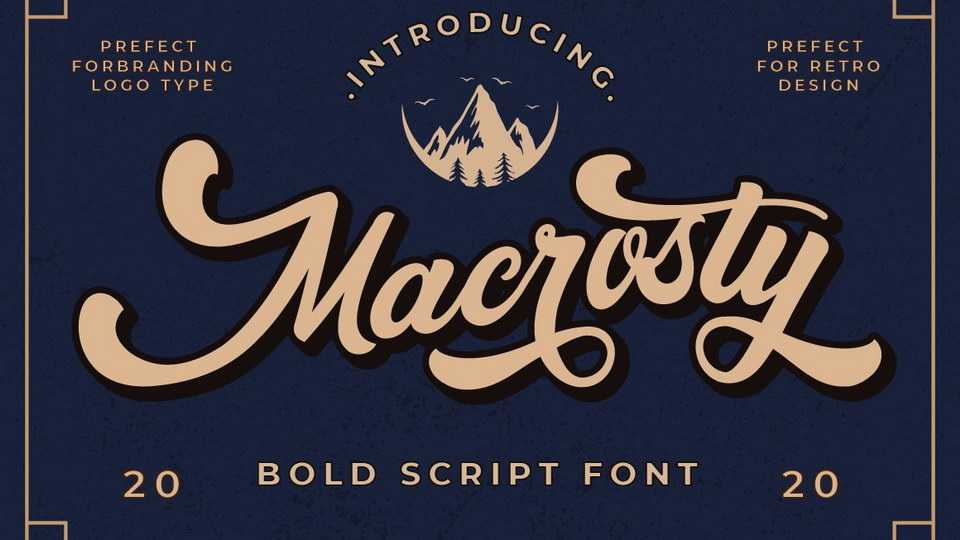
Download Macrosty font, a vintage script typeface. The classic feel is really perfect for you who needs a typeface for retro vintage theme, logotype, apparel, branding and more.
Designer: PutraCetol Studio